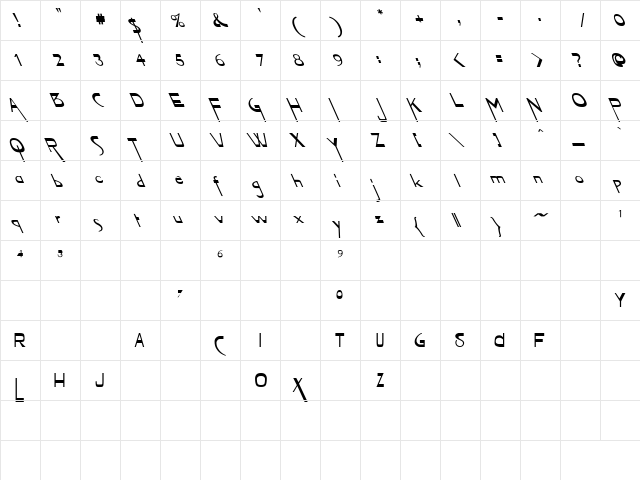
Vireo Font Extreme Lefti Regular Font Preview
Vireo Font Extreme Lefti Regular
Vireo Font Extreme Lefti Regular Font Details
Design Context for Vireo Font Extreme Lefti Typeface
Vireo Font Extreme Lefti is a composed and adaptable typeface that performs quietly and consistently across a wide range of design contexts.